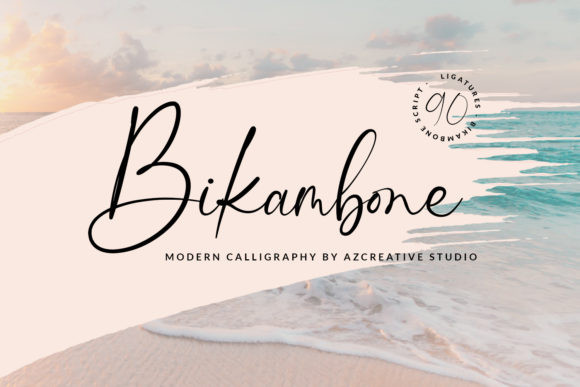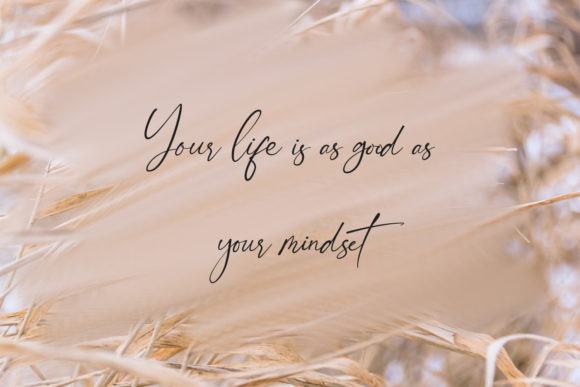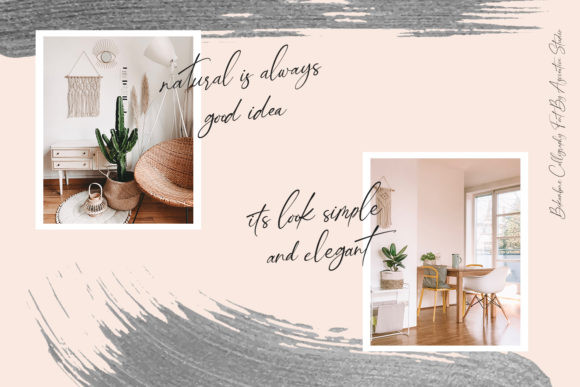
Bikambone Font
Bikambone feels equally charming and elegant. This stunning handwritten font is a stylish homage to classic calligraphy. It features a varying baseline, smooth lines, gorgeous glyphs and stunning alternates. This font is PUA encoded which means you can access all of the cute glyphs and swashes with ease! It also features a wealth of special features including alternate glyphs and ligatures.